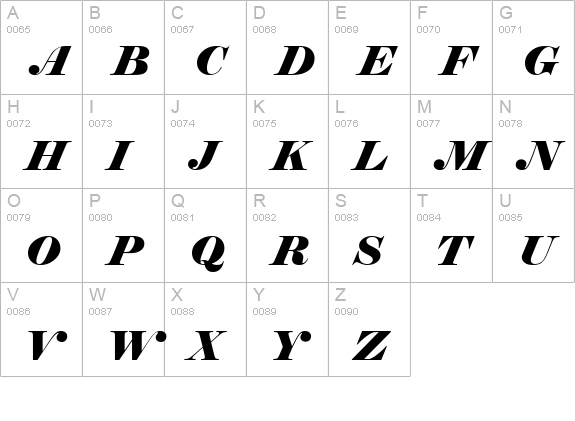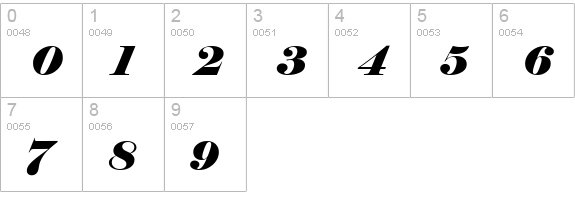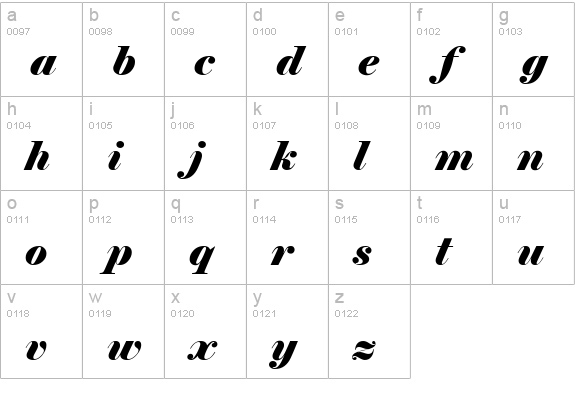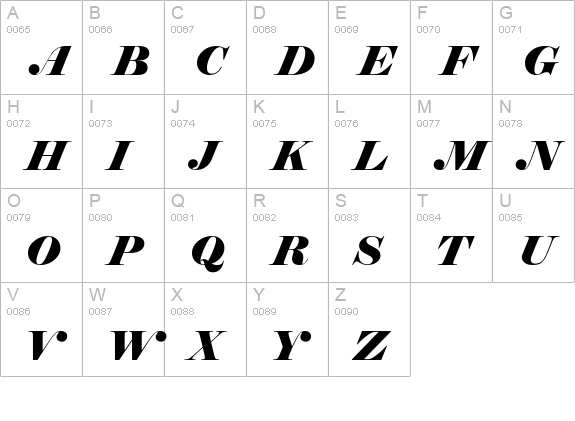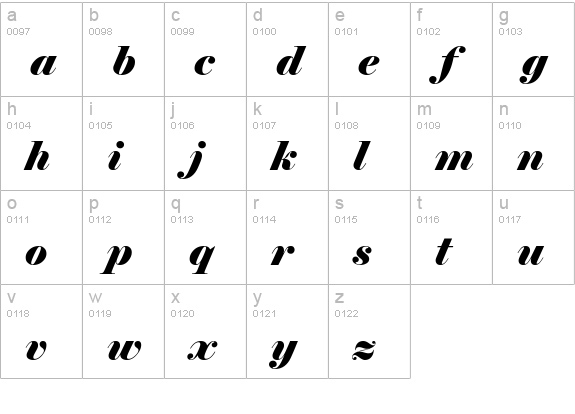
Elephant Italic Font Details
Elephant Italic is a distinctive, italic variant in the Elephant typeface family \xE2\x80\x94 well suited to design and typography projects.
Introducing Elephant Italic font, a stylish and elegant typeface that exudes sophistication and charm. With its slanted design and graceful curves, Elephant Italic adds a touch of uniqueness to any project. This font is perfect for creating eye-catching headlines, elegant invitations, and stylish branding materials. The best part? Elephant Italic font is available for free download at FontsMarket.com. Whether you're a designer looking to add a sophisticated flair to your work or a creative individual seeking a font that stands out, Elephant Italic is the perfect choice. Download it today and elevate your designs with this stunning typeface.